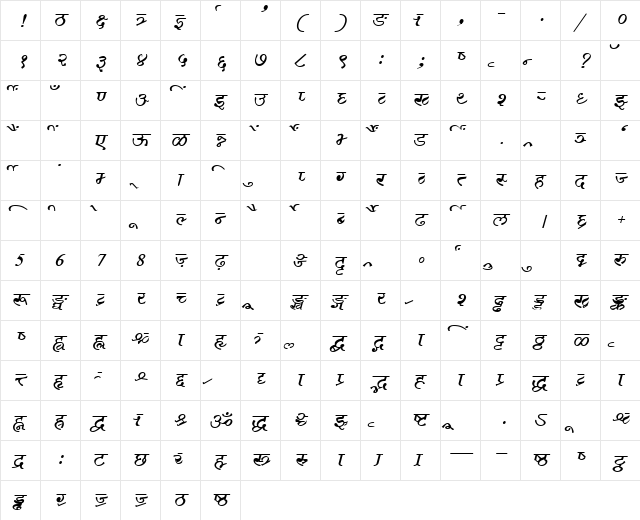
AkrutiDevHarsha NormalItalic
Design Context for AkrutiDevHarsha Typeface
AkrutiDevHarsha takes a measured approach to typography — its balanced proportions and neutral character make it a reliable workhorse for both digital and print work. The dynamic lean of this cut emphasises speed and emphasis in any layout.
Pro Tip: Try AkrutiDevHarsha for annotation and caption copy alongside an upright companion — the contrast in angle creates a dynamic but ordered typographic system.